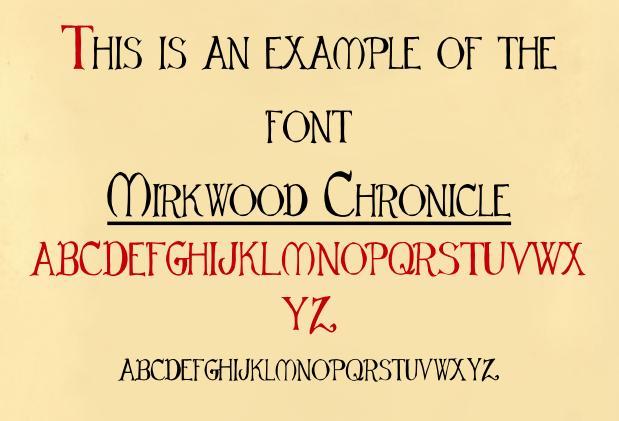
Version 1.00 April 10, 2012, initial release Mirkwood Chronicle © Bill Roach. 2012. OFL / SIL 1.1 Licensed This font is loosely based upon the hand drawn letter styles of the maps of J.R.R. Tolkien.
Mirkwood Chronicle Font is a type set originally hand drawn by W.K. Roach, and then digitized for use in commercial and non commercial media products and publications
- Designer: Bill Roach